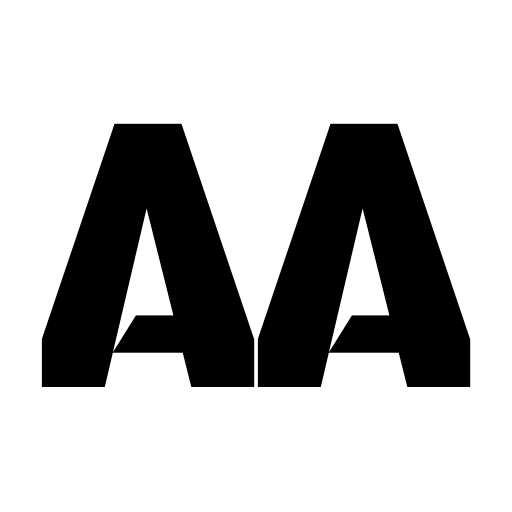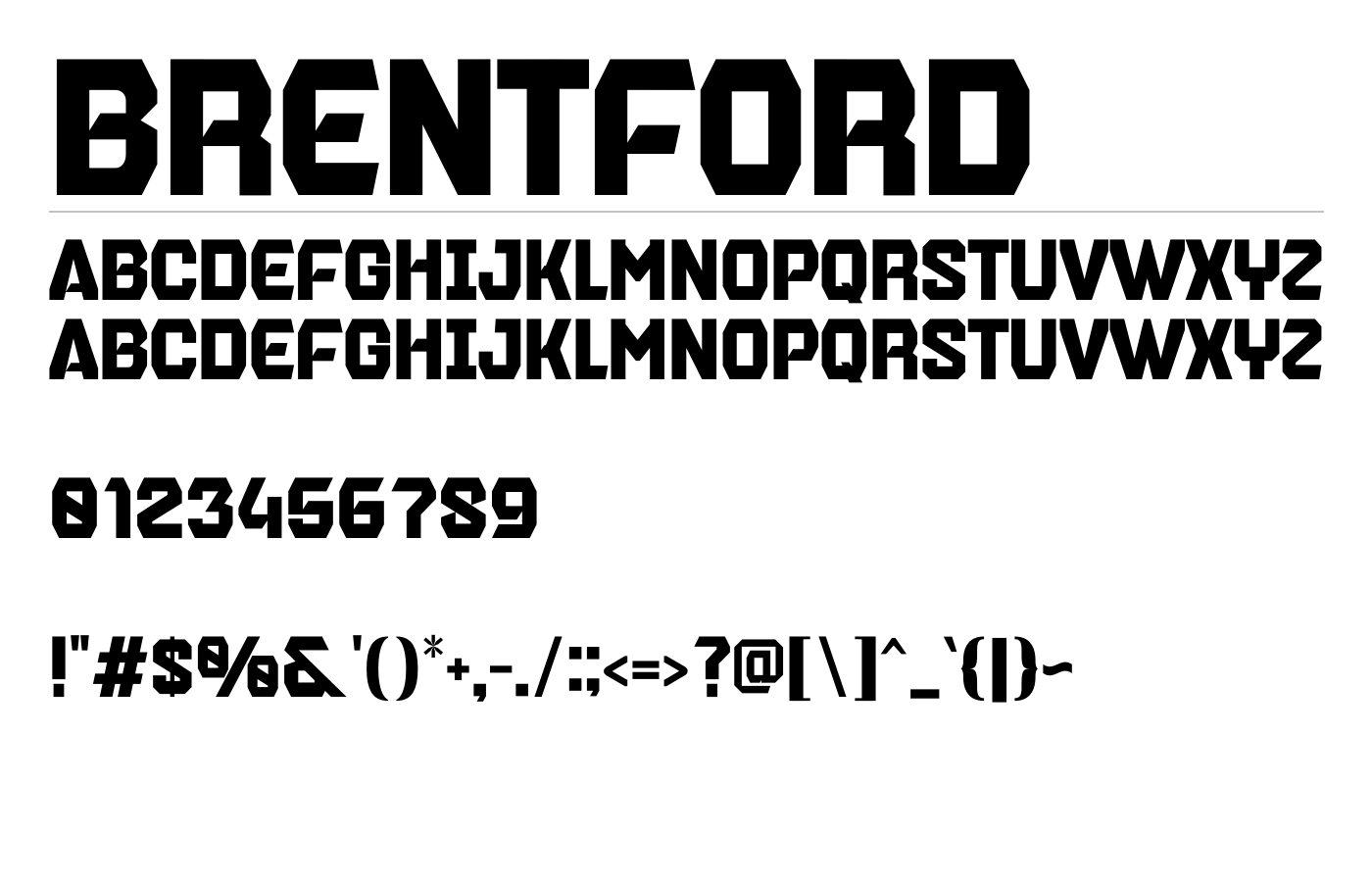
Brentford is a bold, angular sans serif font with a strong geometric influence, featuring sharp edges and a condensed, compact style. Its striking shapes and uniform stroke weight give it a modern, industrial feel, making it ideal for impactful headlines, branding, and designs that demand a powerful, assertive presence. This font is well-suited for sports, technology, and urban-themed projects where a standout, sturdy look is desired.
Brentford Font
About Brentford Font
| Font family | Brentford Font |
| Designer | Trequartista Studio |